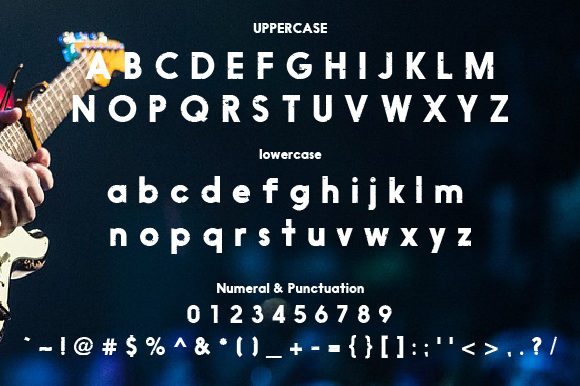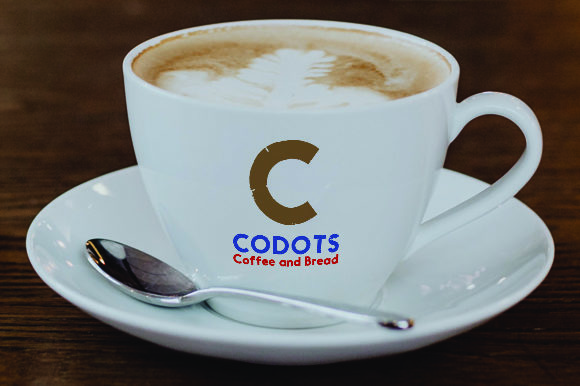
Introducing Fragile Font: The Perfect Choice for Designers and Crafters
Are you a designer or crafter looking for a unique and eye-catching font to elevate your creative projects? Look no further than Fragile Font, an exotic display typeface that adds a touch of rugged elegance to any design. With its distinctive dirt texture, Fragile Font is perfect for creating visually striking name cards, posters, logos, magazines, covers, banners, and large-scale artwork.
What Makes Fragile Font So Special?
Fragile Font is a one-of-a-kind typeface that boasts a rugged, distressed look that’s sure to grab attention. Its unique dirt texture gives it a tactile, hand-crafted feel that’s perfect for designers and crafters who want to add a personal touch to their work. Whether you’re creating a bold poster or a delicate name card, Fragile Font is the perfect choice for adding a touch of sophistication and style.
Key Features of Fragile Font
- Exotic Display Typeface: Fragile Font is a carefully crafted display typeface that’s designed to make a statement. Its bold, rugged letters are perfect for creating eye-catching headlines and titles.
- Dirt Texture: The distinctive dirt texture of Fragile Font gives it a unique, hand-crafted look that’s perfect for adding a touch of personality to your designs.
- Versatile: Fragile Font is perfect for a wide range of creative projects, from name cards and posters to logos, magazines, covers, banners, and large-scale artwork.
- Easily Readable: Despite its bold, rugged look, Fragile Font is surprisingly easy to read, making it perfect for use in a variety of contexts.
Uses for Fragile Font
So, what can you use Fragile Font for? The possibilities are endless! Here are a few ideas to get you started:
- Name Cards: Add a touch of elegance to your business cards or name cards with Fragile Font.
- Posters: Create eye-catching posters that grab attention with Fragile Font’s bold, rugged letters.
- Logos: Use Fragile Font to create a unique and memorable logo for your brand or business.
- Magazines and Covers: Add a touch of sophistication to your magazine or journal with Fragile Font’s distinctive dirt texture.
- Banners: Create bold, eye-catching banners that make a statement with Fragile Font.
- Large-Scale Artwork: Use Fragile Font to add a touch of personality to your large-scale artwork or installations.
Tips for Using Fragile Font
Here are a few tips for getting the most out of Fragile Font:
- Experiment with Different Sizes: Fragile Font looks great in a variety of sizes, from small and delicate to large and bold.
- Play with Color: The dirt texture of Fragile Font looks great in a range of colors, from earthy tones to bold brights.
- Combine with Other Fonts: Fragile Font pairs well with a range of other fonts, from elegant scripts to bold sans serifs.
In conclusion, Fragile Font is a unique and versatile typeface that’s perfect for designers and crafters looking to add a touch of elegance and sophistication to their creative projects. With its distinctive dirt texture and bold, rugged letters, Fragile Font is sure to grab attention and make a statement. So why not give it a try and see what amazing things you can create?